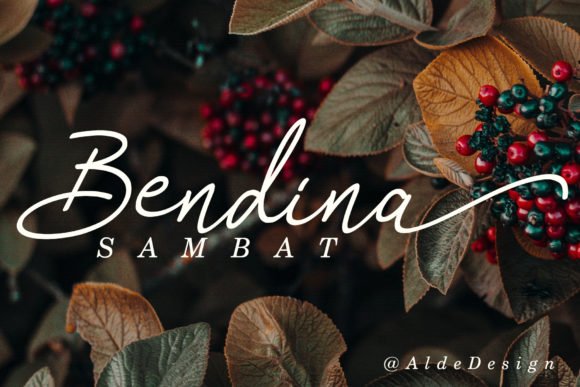
The Perfect Typography to Elevate Your Designs
Have you ever stared at a blank canvas, waiting for the perfect idea to strike? The blank page can be daunting, but what if you had the right tools to spark creativity? That’s where the Bendina Sambat Font comes in – a sophisticated and classy font that can transform any design project into a true masterpiece.
This elegant font is designed to make a statement, and for good reason. Its refined aesthetic is perfect for creating a lasting impression, whether you’re working on a high-end branding project or a luxury marketing campaign. As a designer, you know how much a well-chosen font can elevate your work, and Bendina Sambat Font is no exception. With its unique blend of style and sophistication, it’s a valuable addition to any designer’s toolkit.
Bendina Sambat Font Key Features
- Font Family: Bendina Sambat, a unique and exotic font inspired by traditional Southeast Asian scripts.
- Unique Characteristics: Features intricate and ornate letterforms, with distinctive flourishes and decorations, giving it a rich and cultural feel.
Bendina Sambat Font Review
I recently had the chance to work with the Bendina Sambat font, and I must say it’s an interesting addition to any design project. Here are my thoughts:
- Unique flair: Bendina Sambat brings a quirky and offbeat feel to any text, making it perfect for creative projects or designs that require a touch of eccentricity.
- Good for headlines: The font is bold and eye-catching, making it ideal for headings and titles.
- Supports various languages: Bendina Sambat has a wide language support, which is great for designers working on international projects.
- Difficult to read at small sizes: The font’s unique design can make it hard to read when used in small text sizes.
- Not ideal for body text: The font’s bold and playful nature makes it less suitable for large blocks of text, where readability is key.
Overall, I think Bendina Sambat is a great addition to any designer’s toolkit, but it’s best used in moderation. Its unique flair and good language support make it perfect for specific design projects, but it may not be the best choice for every task. With that in mind, I’d give it 4 out of 5 stars.
The Bendina Sambat font is ideal for creative and artistic projects, such as graphic design, posters, and invitations. It’s also great for adding a unique touch to your resume or business cards.
Alternatives to Bendina Sambat Font
The Great Vibes Font is a beautiful, handwritten script font that can be used for creative projects, invitations, and other materials where a personal touch is required. It is more elegant and refined compared to Bendina Sambat Font, making it suitable for high-end designs.
Comparison: Great Vibes Font is more polished and sophisticated, whereas Bendina Sambat Font has a more casual, playful feel. Great Vibes Font is ideal for projects that require a touch of sophistication, while Bendina Sambat Font is better suited for casual and creative projects.
The Carolyna Pro Font is a modern, elegant script font that is perfect for branding, packaging, and other materials where a sophisticated look is required. It has a more refined and polished feel compared to Bendina Sambat Font, making it suitable for professional designs.